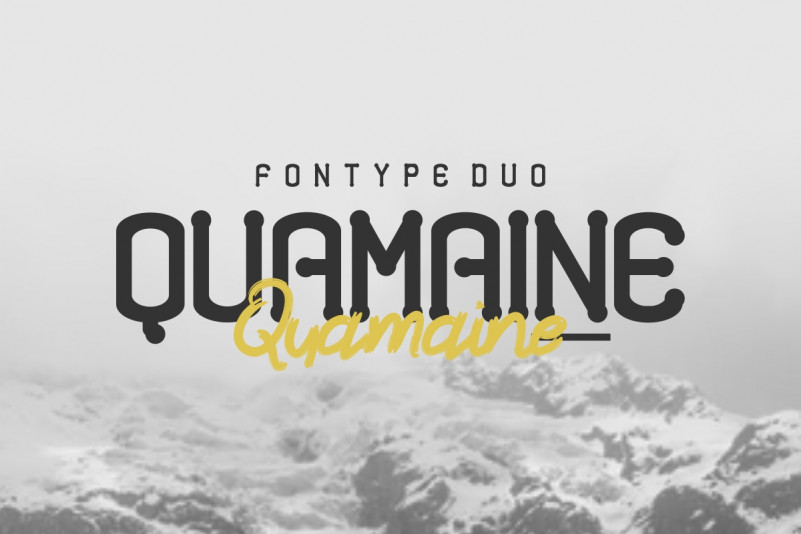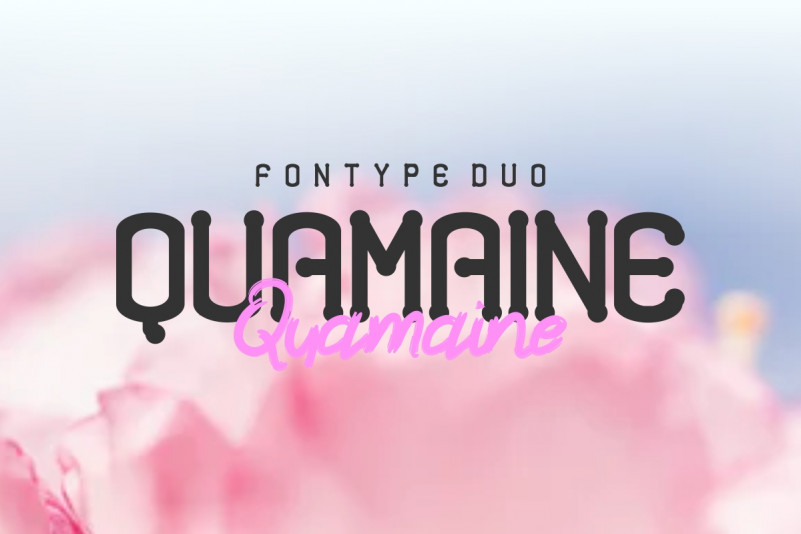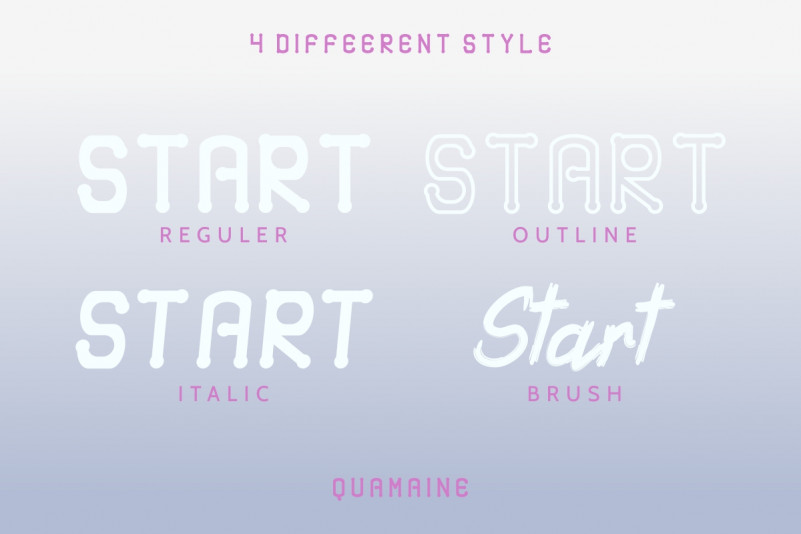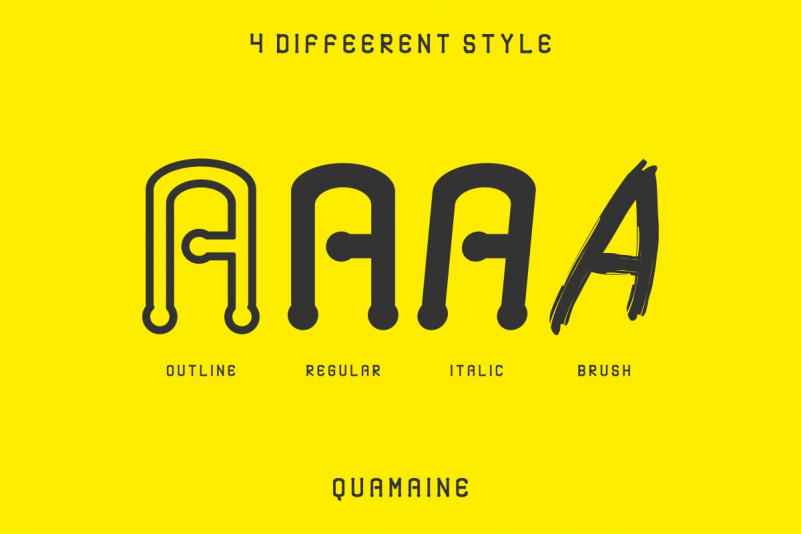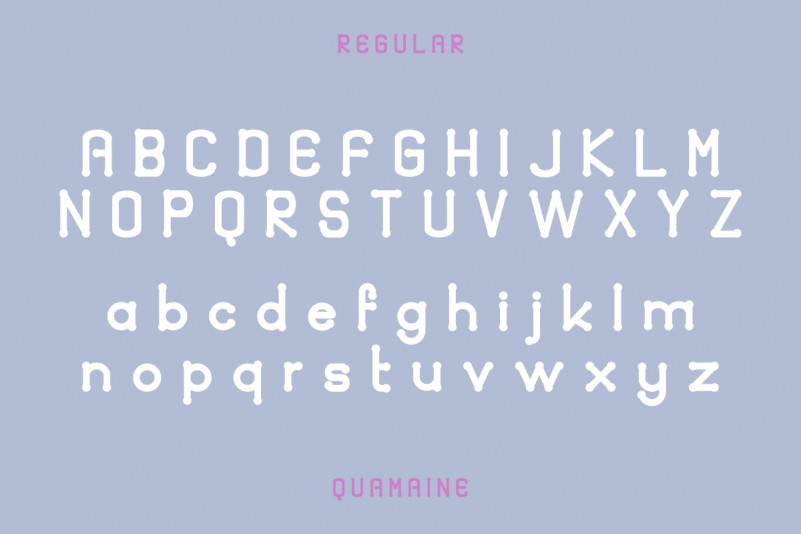
Introducing our newest font : Quamaine Font Duo! It’s 3 Sans Serif and 1 Brush Font. Mixed up beautifully.
The sans serif font consist of regular, italic and outline/stroke. The brush font was made by hand with love.
This is a new kinda font, Mixed up beautifully between sans and brush script font. It has an exclusive glyph, well organized space and kerning, and long last beauty look.
It is a sophisticated styling font which will be perfect for branding, logo, photography and signature. It is so elegant, classy, strong and beautiful. With its unique character, this font will suit many cases and industry, from construction, real estate, services, law firm, small startup, wedding organizer etc. This will be Great for branding, logo, stationery, business card, signage, flyer, brochure etc.